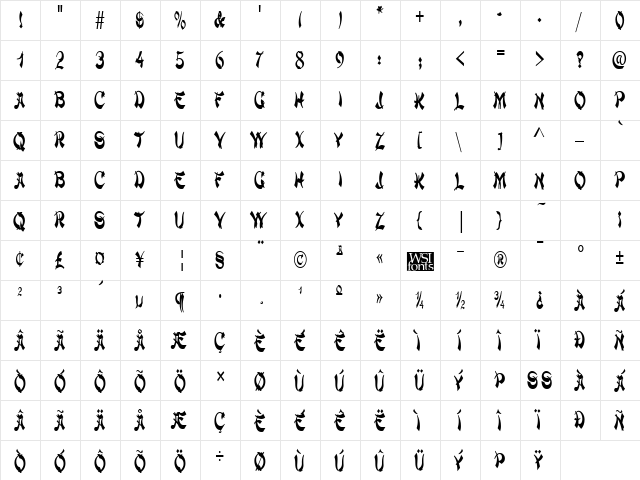
ChowMeinNarrow Regular
Design Context for ChowMeinNarrow Typeface
ChowMeinNarrow is a composed and adaptable typeface that performs quietly and consistently across a wide range of design contexts. Its narrow stance lets it pack a punch even in space-constrained designs.